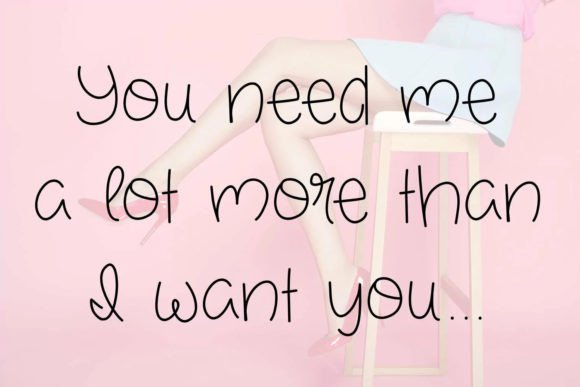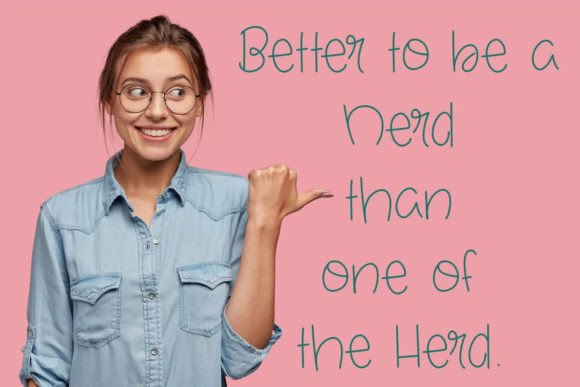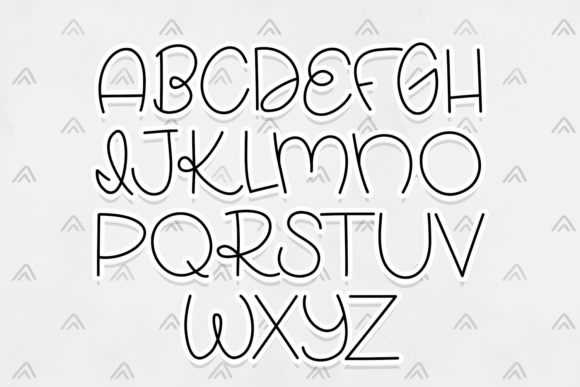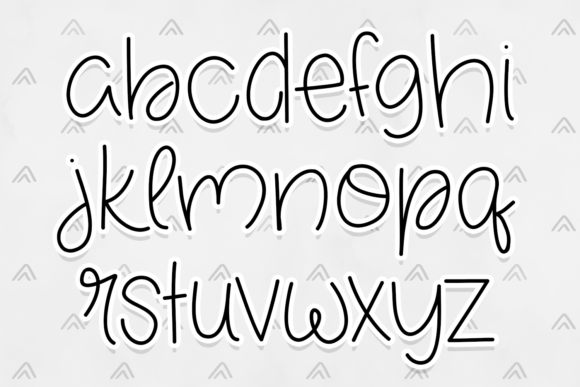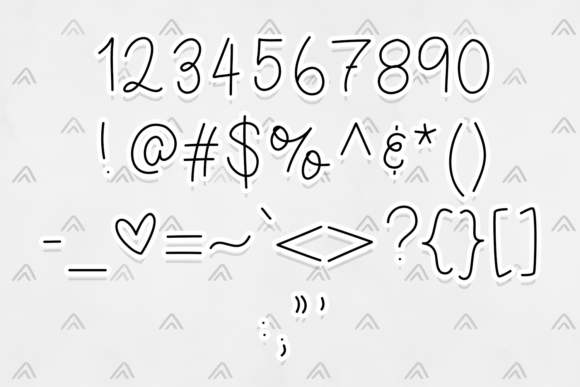
Introduction to Girlfriend Material Font
Introducing Girlfriend Material, a gun handwritten font.
Girlfriend Material is a modern, monoline font with some script or print letters giving a fun handwritten feel when using Use Girlfriend Material on your next project for a new look.
Key Features of Girlfriend Material Font